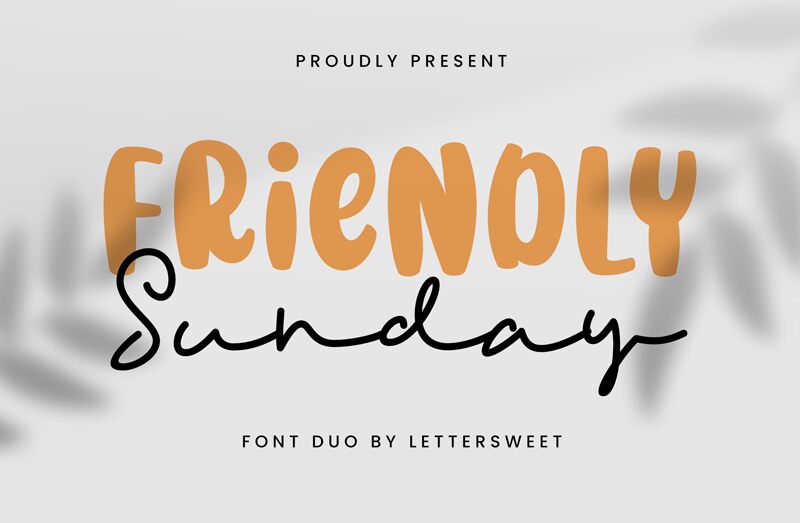
Friendly Sunday Script Regular
Friendly Sunday Script font by Lettersweet Studio is a free lightweight monoline handwritten script font. It stands out with a single, pencil-thin stroke that glides from letter to letter, creating a gentle baseline bounce and airy spacing; rounded joins and open counters keep it breezy and legible at medium sizes, like a neat note in a favorite journal.
Using Friendly Sunday Script, headlines and short phrases feel warm without getting messy—great for bakery logos, packaging labels, wedding place cards, lifestyle blog headers, Instagram quotes, recipe cards, and gift tags. This free font shines when paired with a clean, quiet sans; set the sans in small caps to anchor the script’s playful rhythm.